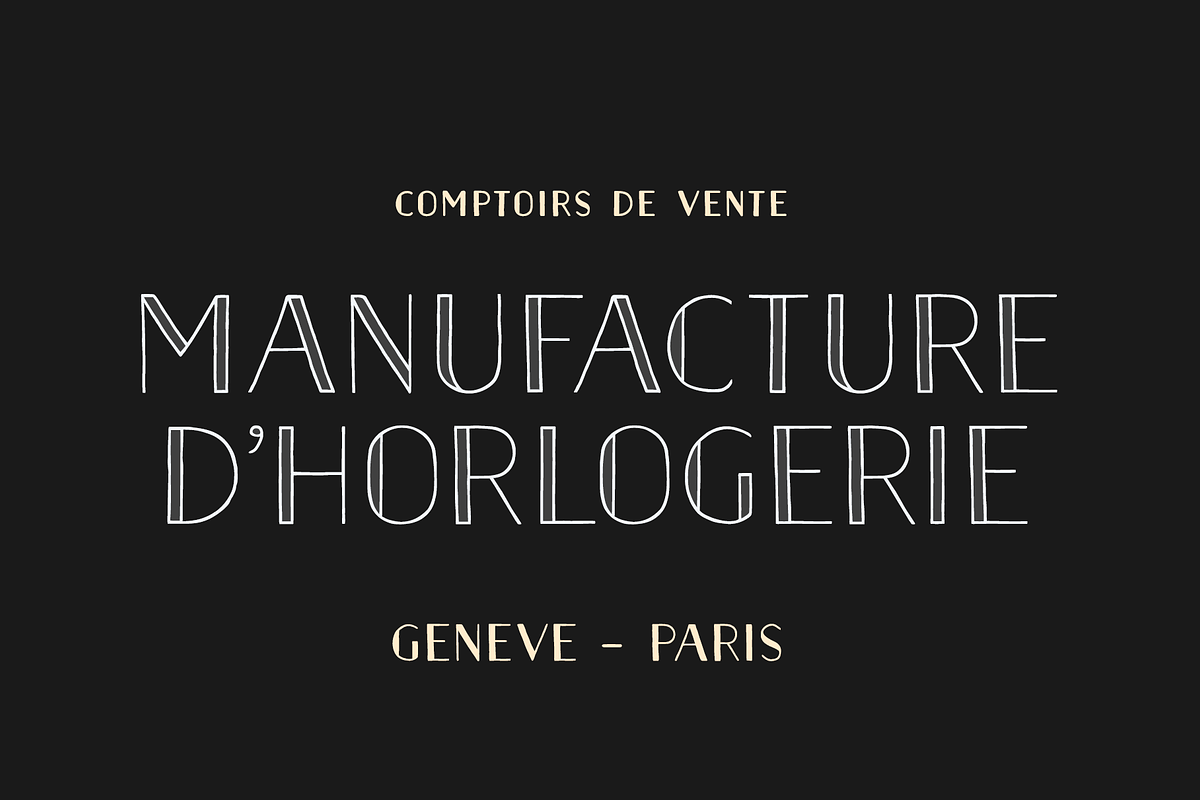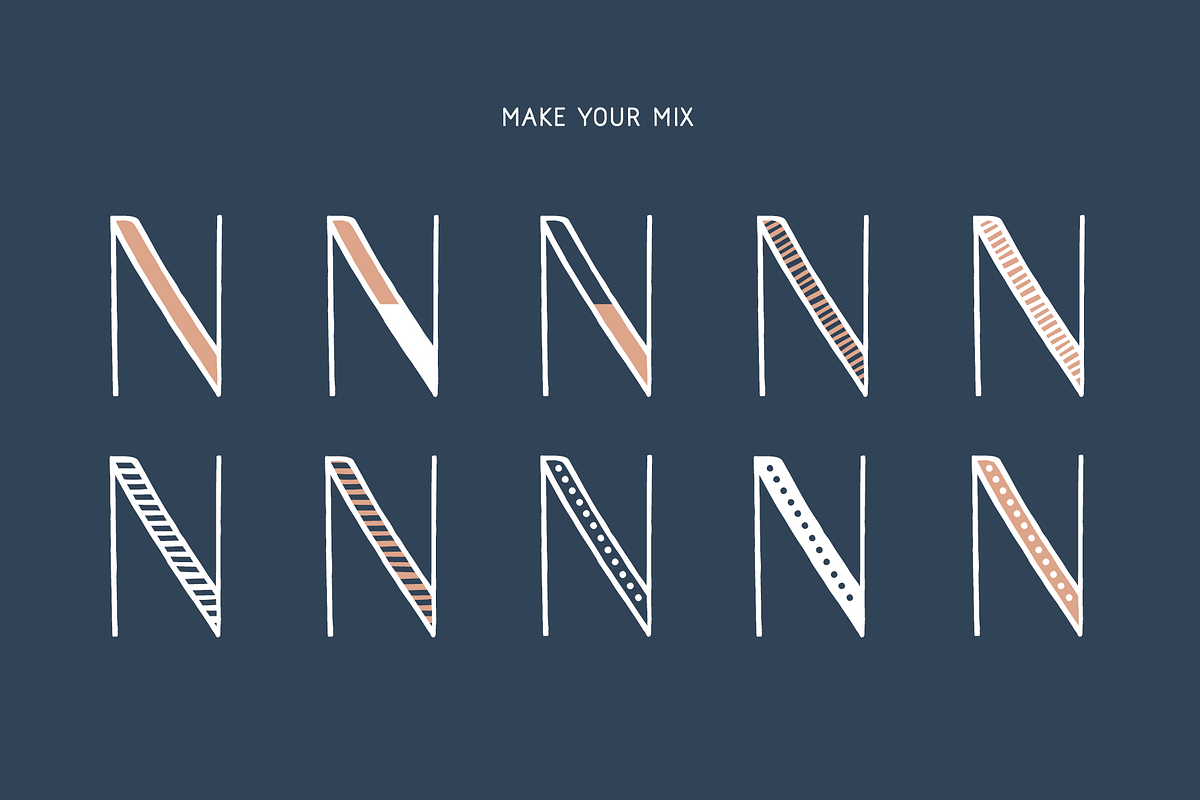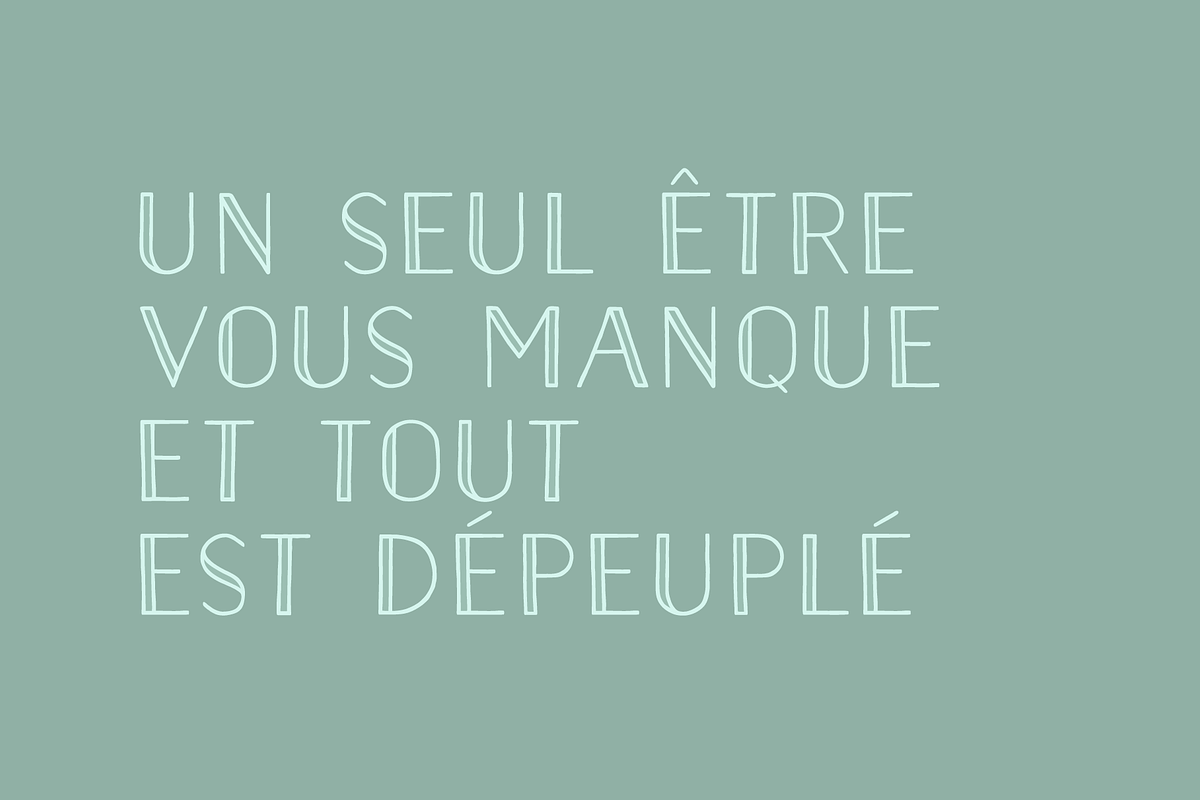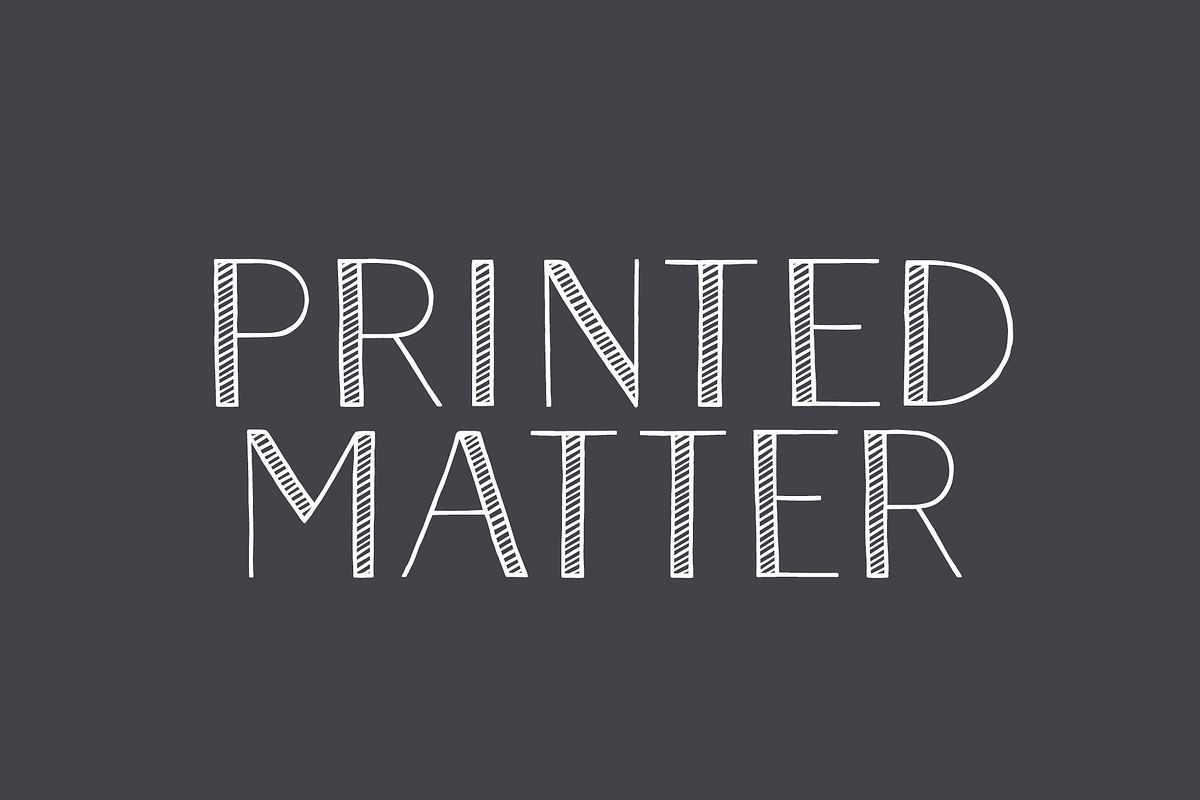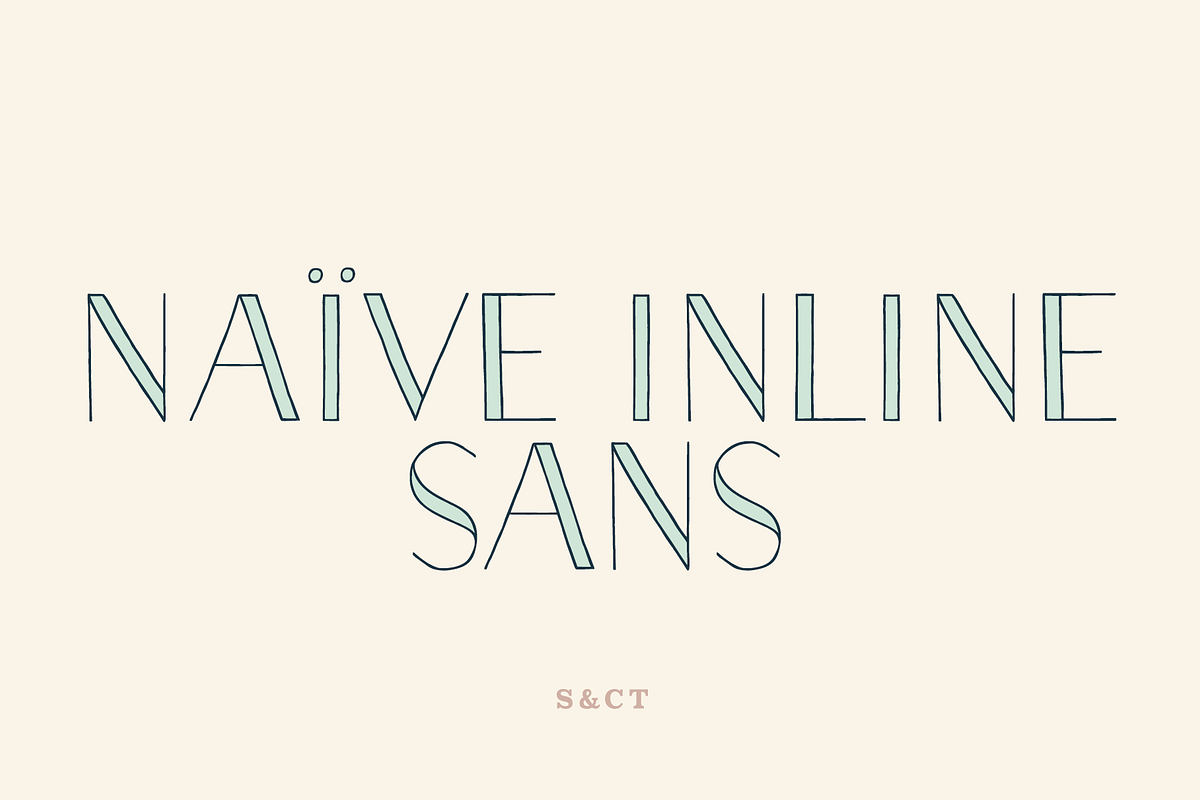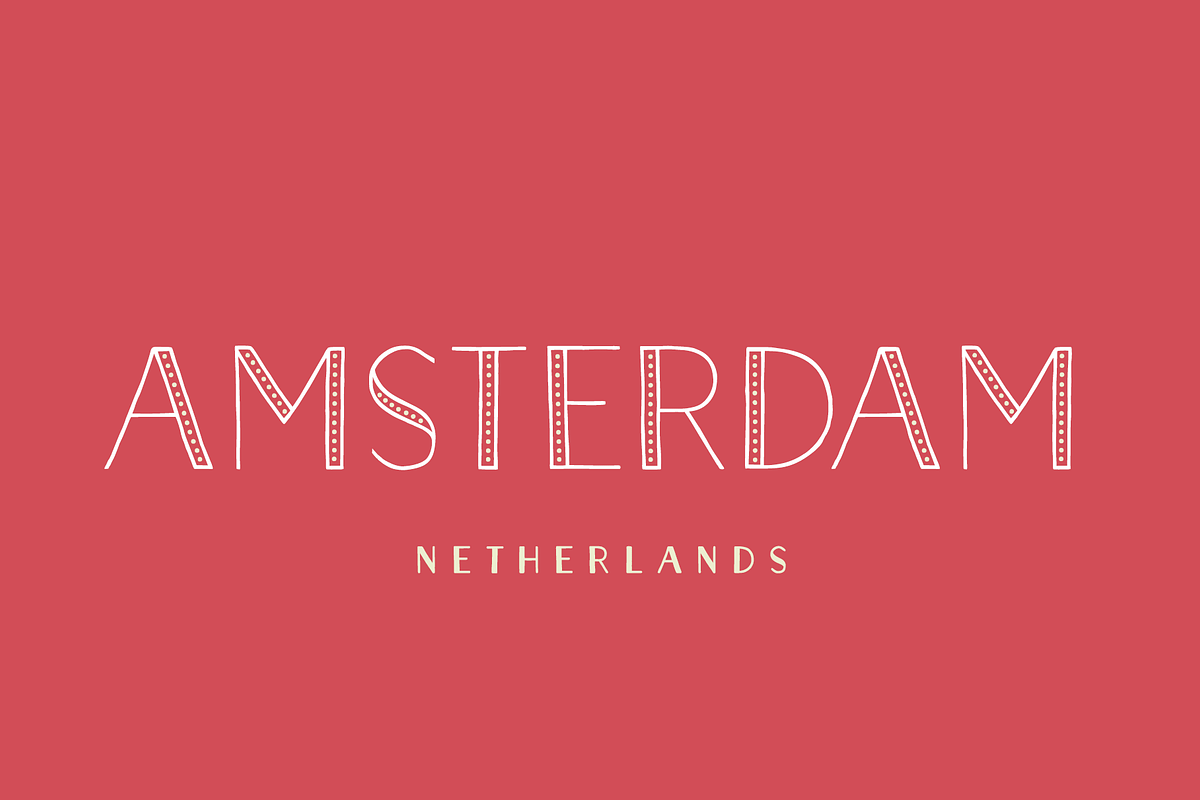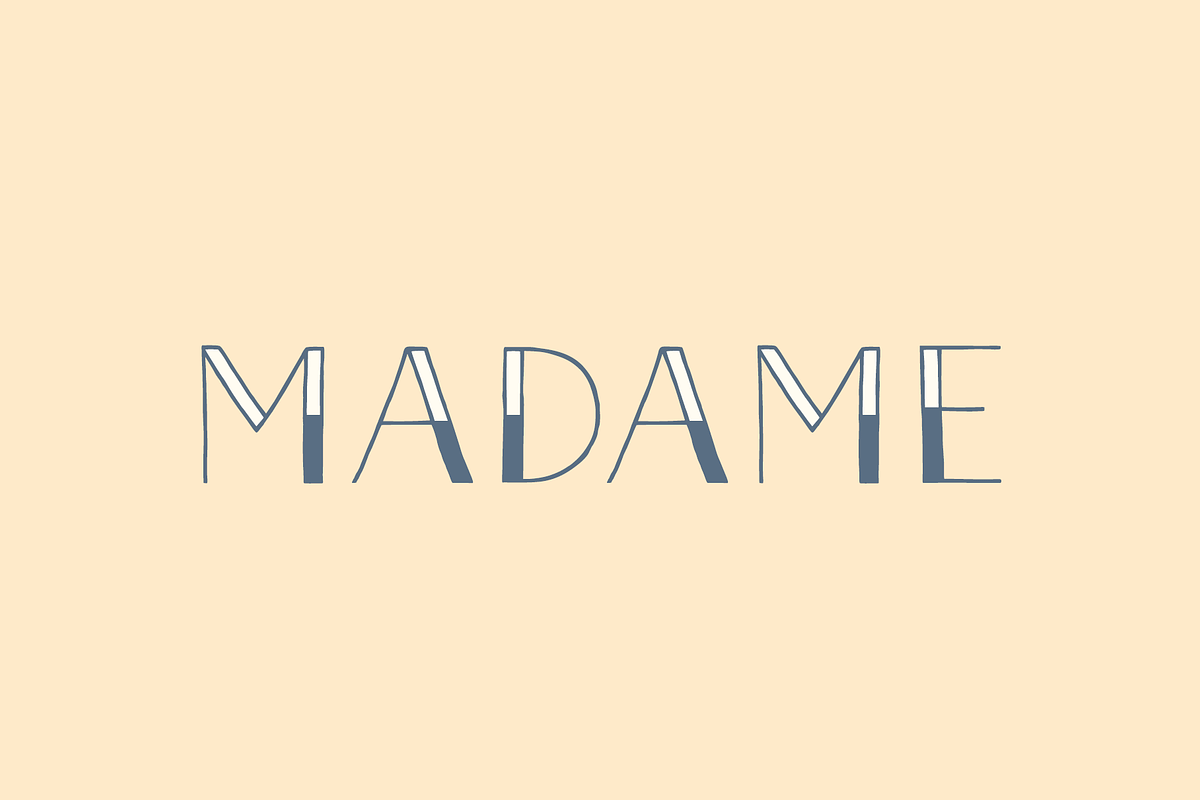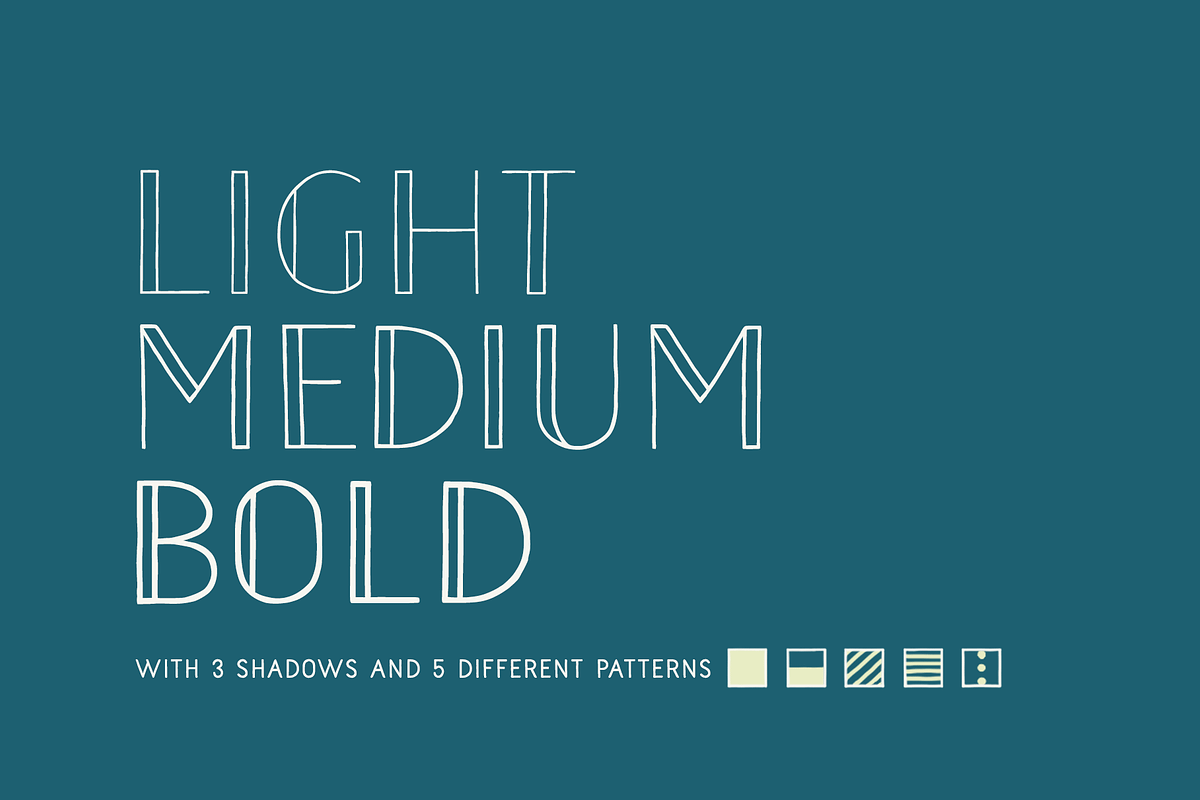
Naive Inline Sans Font Collection
- This pack includes 11 fonts: Naïve Inline Sans Light Naïve Inline Sans Medium Naïve Inline Sans Bold Naïve Inline Sans Shadow Light Naïve In
- This font is part of our Naïve superfamily that contains lot of variations: Line, Inline, Serif, Sans Serif, and a special Art Deco one.